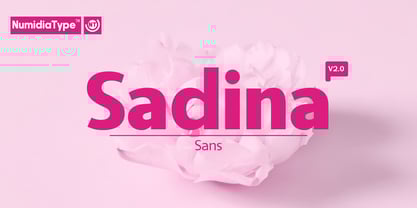
Sadina Sans
The Sadina Sans Font Family was designed by Yassine Abdi and published by NumidiaType. Sadina Sans contains 14 styles and family package options. More about this family
Sadina™ is the first family of Sadina Fonts Project, it is based on geometric modernism with a classic touch. Designed with a beautiful mix between modern geometric, contrast, and classic sense, it provides linguistic support for "Western European and Cyrillic" languages.
Sadina comes with new design and new features, it was improved and redesigned to be displayed with high tolerance and more professional business and scientific features, the most used for corporate and personal use, like marketing, branding, web design, and scientific derived units.
We make a decision to redesign it with many updates to adapt to many needs for designers in UI and UX. Just try the second release to feel the difference.